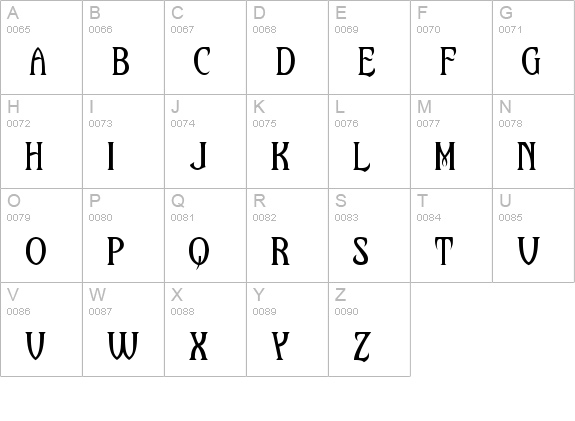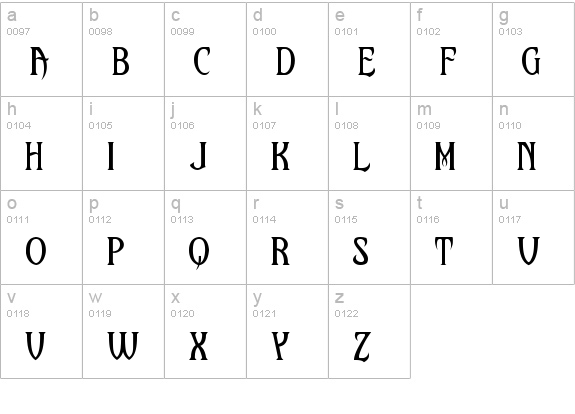
Upon A Dream (Maleficent) Font Details
Upon A Dream (Maleficent) font is a captivating and enchanting typeface that will transport you to a world of magic and fantasy. Inspired by the iconic Disney character Maleficent, this font exudes both elegance and mystery, making it perfect for all your design projects. With its unique and intricate letterforms, Upon A Dream (Maleficent) font adds a touch of whimsy and allure to any text. Whether you are creating invitations for a fairytale-themed party, designing a logo for a fantasy-inspired brand, or crafting beautiful typography for your personal artwork, this font will surely captivate your audience and bring your visions to life. One of the best features of Upon A Dream (Maleficent) font is that it is freely available to download at FontsMarket.com. You no longer have to worry about breaking the bank to access this amazing font. Simply visit FontsMarket.com, and with just a few clicks, you can have Upon A Dream (Maleficent) font at your fingertips. Designed with the utmost care and attention to detail, Upon A Dream (Maleficent) font is versatile and easy to use. It supports multiple languages and comes in various formats, ensuring compatibility across different platforms and design software. So, why wait? Let your imagination soar and unleash your creativity with Upon A Dream (Maleficent) font. Download it for free at FontsMarket.com and embark on a journey to create stunning and magical designs that will leave a lasting impression.